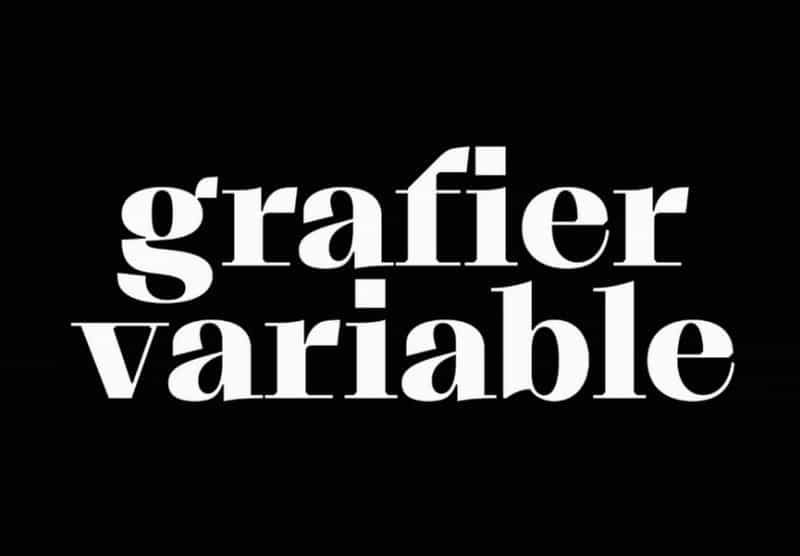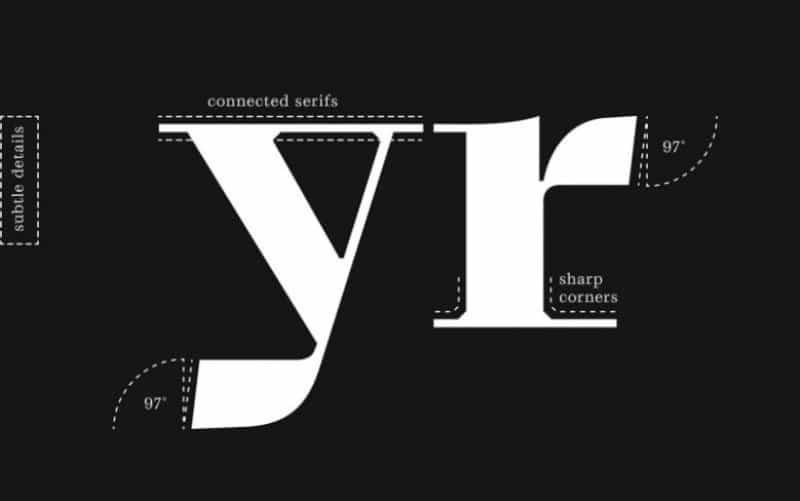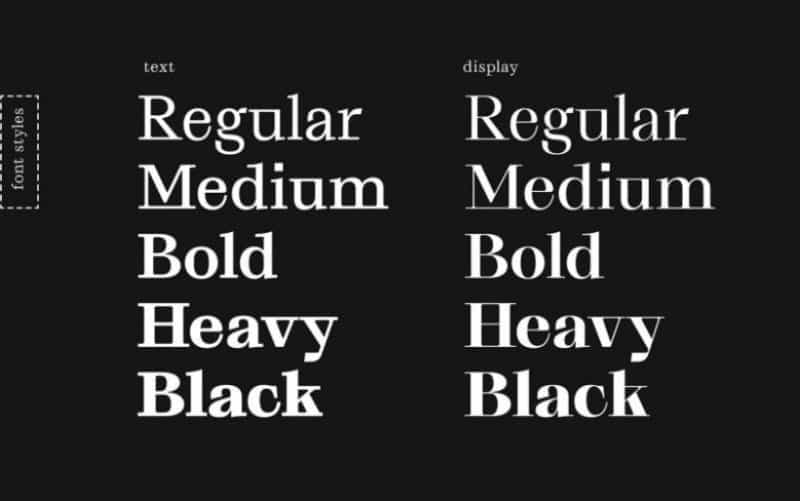
Introducing Grafier! Grafier Serif Font Family is a modern serif typeface that combines the classic design with the contemporary aesthetics. It was created with the intention to resemble Baskerville, a typeface from the 18th century which is of English origin. Grafier has sharp and clear digital curves, square dots and long connected serifs. Activate the OpenType stylistic alternatives to isolate them.